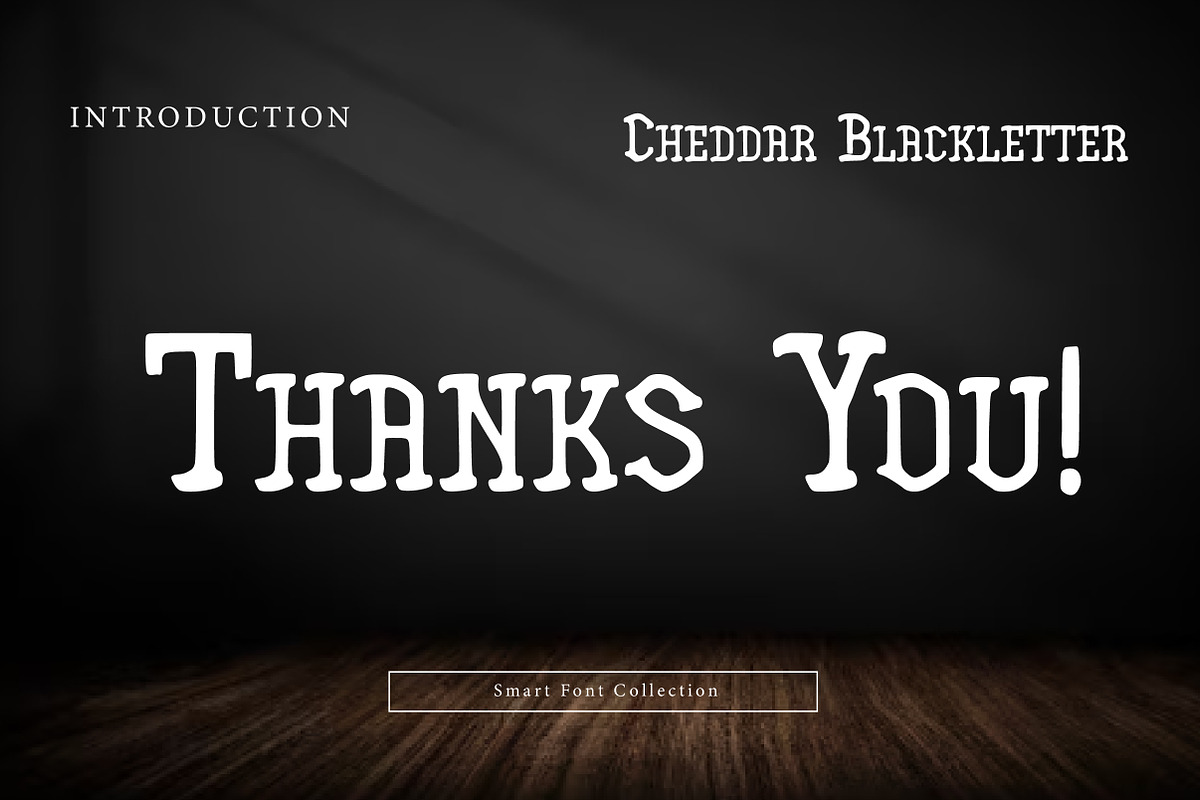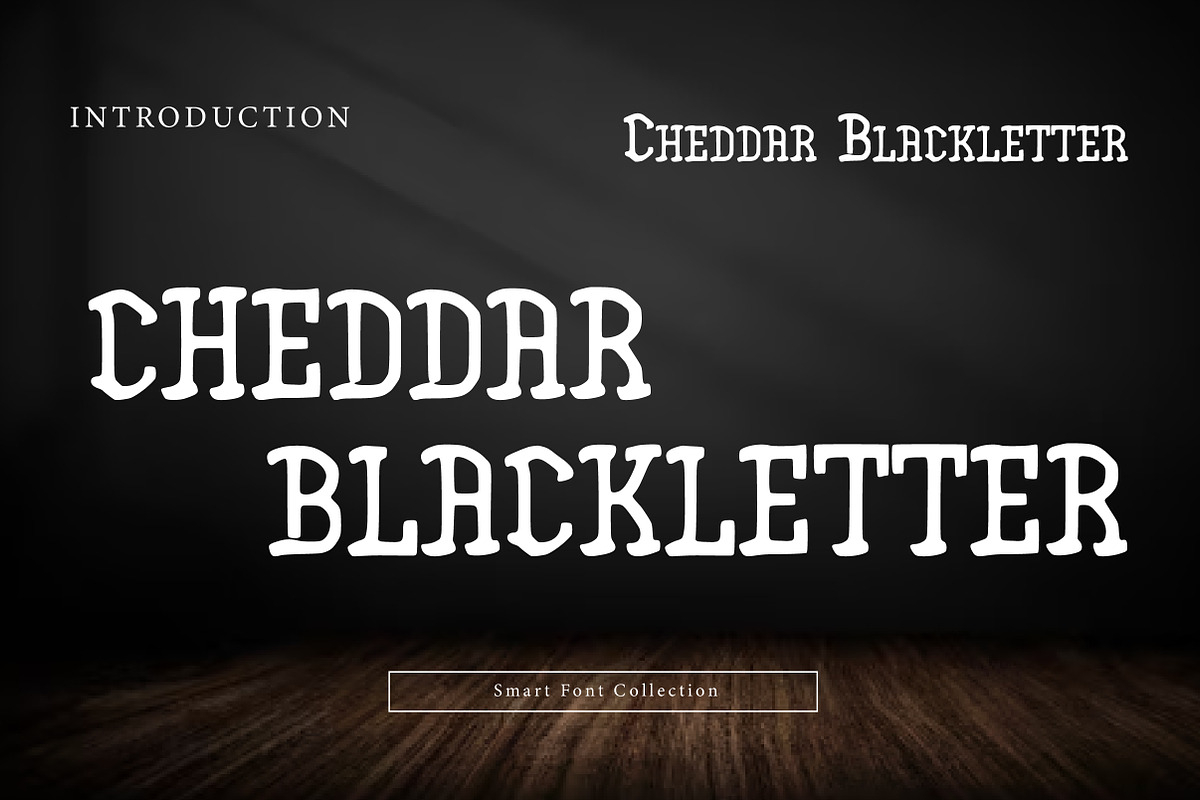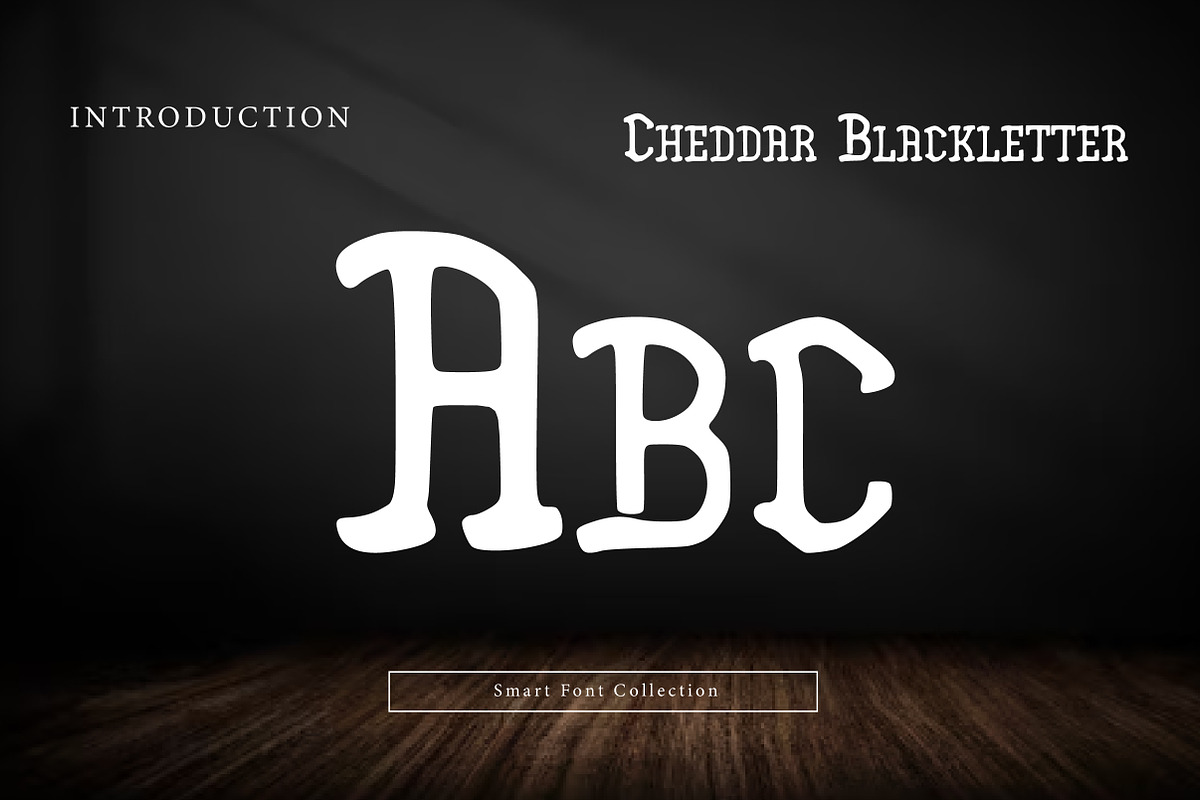
Cheddar Blackletter
Cheddar Blackletter is a bold Gothic display font inspired by classic blackletter traditions with a strong, modern-friendly silhouette. Its sharp medieval character, dramatic vertical rhythm, and stylized serifs make it ideal for logos, packaging, labels, posters, book covers, tattoos, and heritage branding. Cheddar Blackletter delivers an old-world atmosphere with confident readability—perfect for projects that want to feel historic, powerful, and unmistakably iconic.